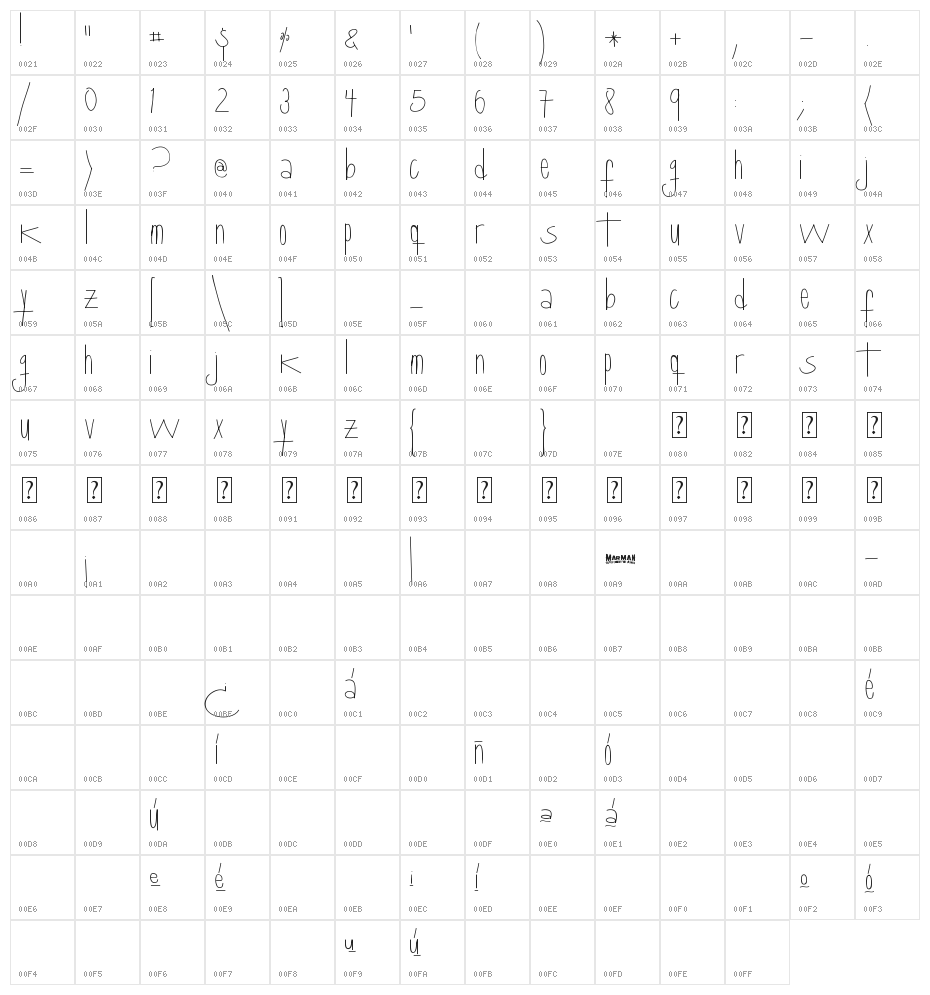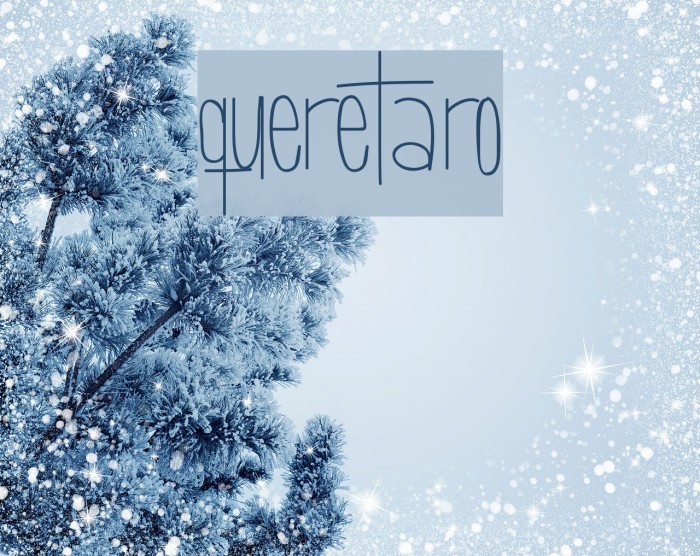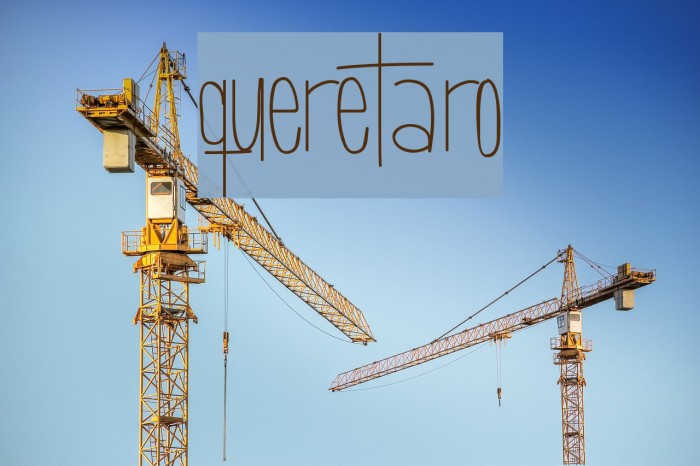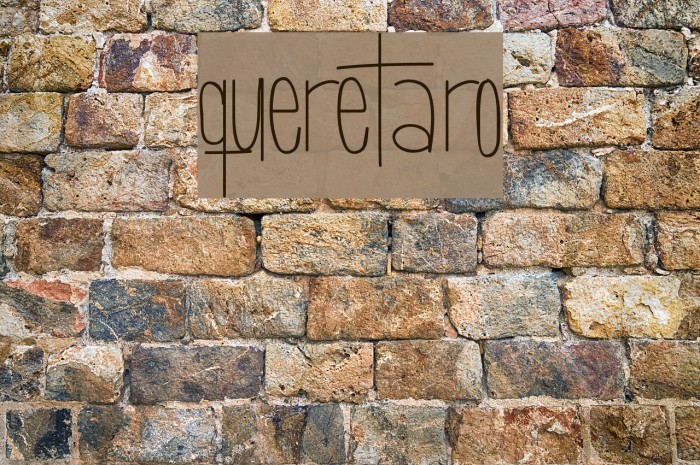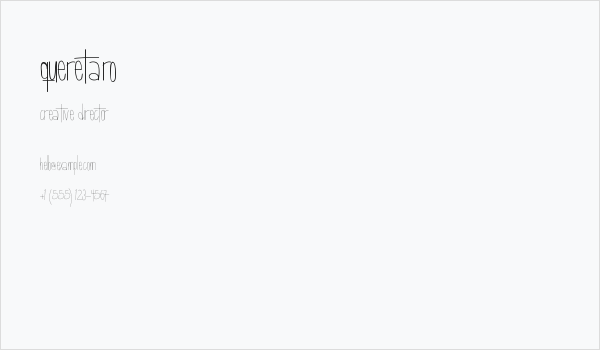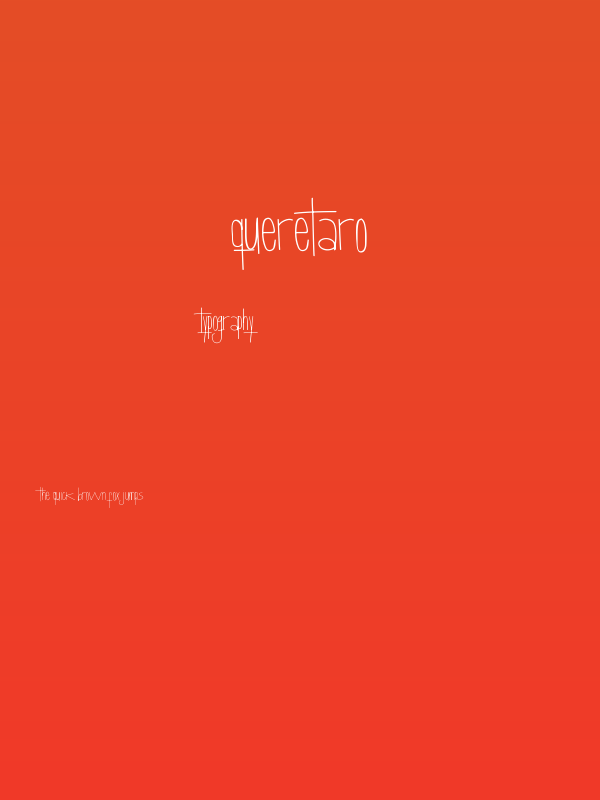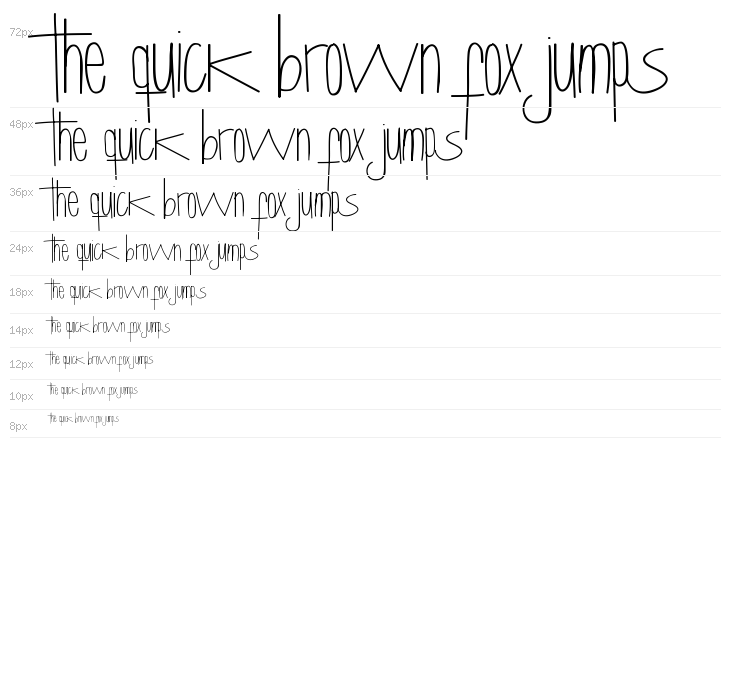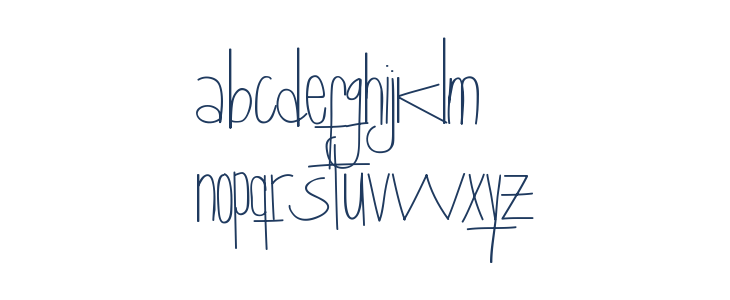
Queretaro Font
Queretaro Description
This font features a unique, elongated design with a playful and artistic flair. The characters are tall and narrow, with a whimsical touch that gives them a hand-drawn appearance. The strokes are thin and consistent, creating a light and airy feel. The uppercase and lowercase letters maintain a cohesive style, with some characters exhibiting slight variations that add to the font's charm. Numbers and special characters are designed to match the overall aesthetic, ensuring a harmonious look across all text. This font is ideal for creative projects that require a distinctive and eye-catching typeface.
| Proposed Projects | Perfect for artistic posters, creative invitations, children's book covers, and playful branding. |